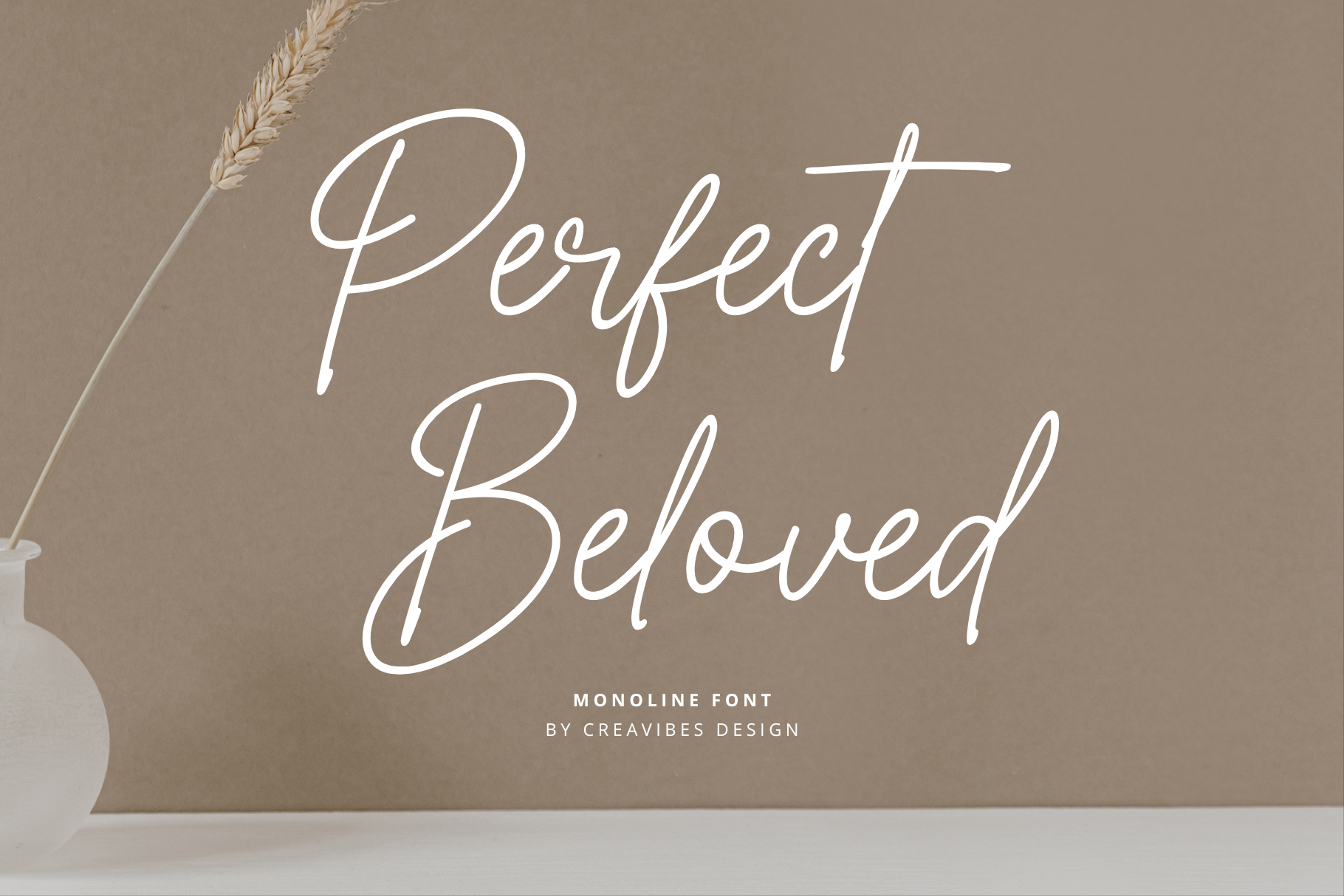
Perfect Beloved - Monoline Font
Perfect Beloved - Monoline Font, this font is perfect for branding, invitation, stationery, wedding designs, social media posts, advertisements, product packaging, product designs, label, photography, watermark, special events, and more.
- Uppercase and lowercase letters
- Multilingual, numerals, and punctuation